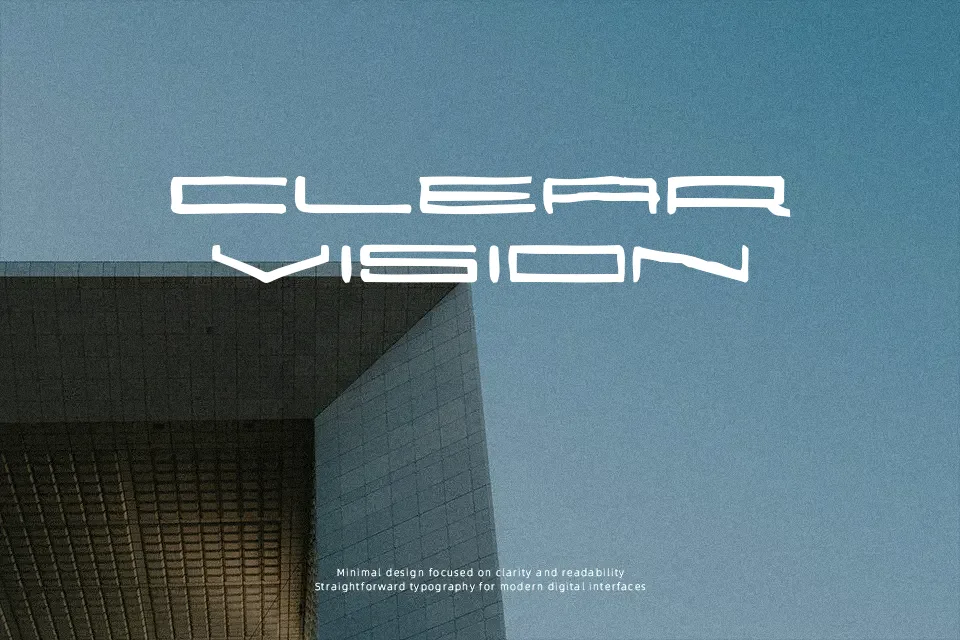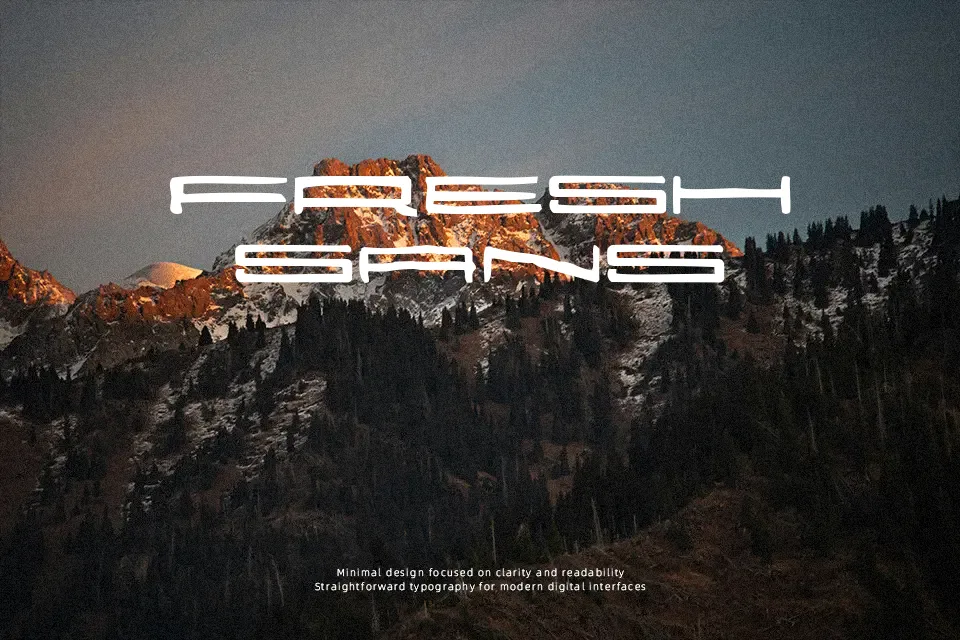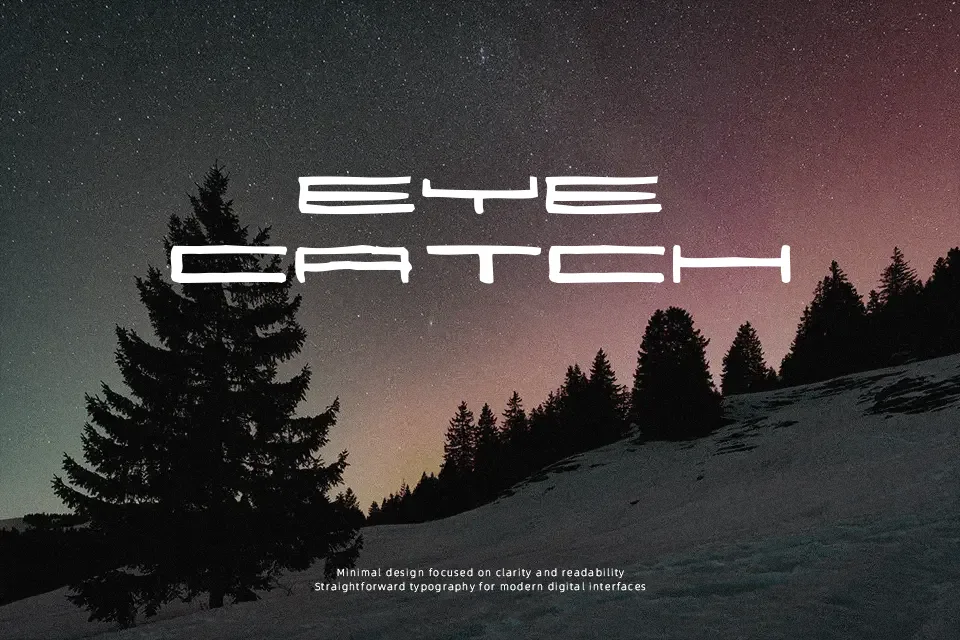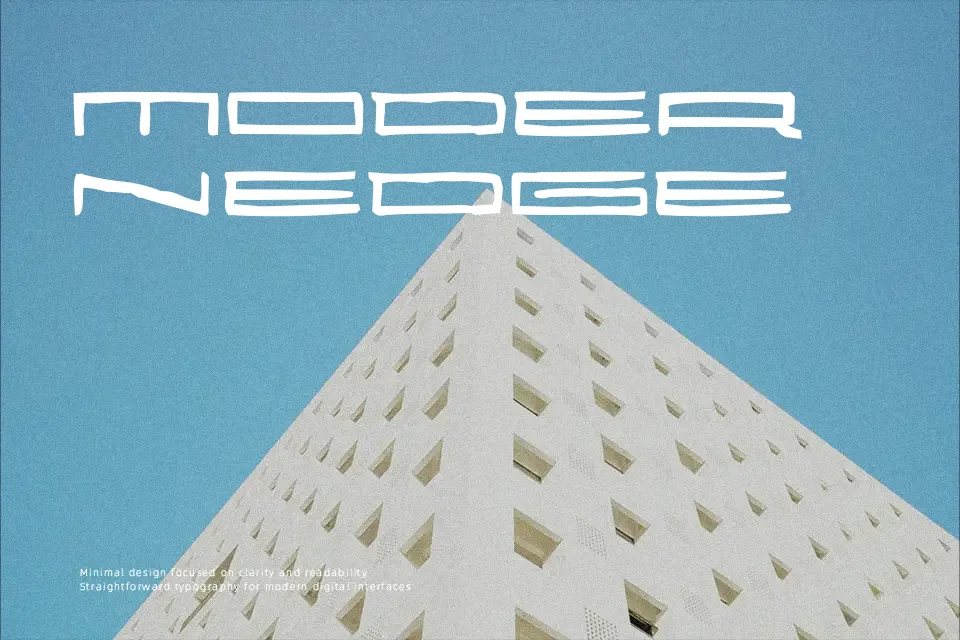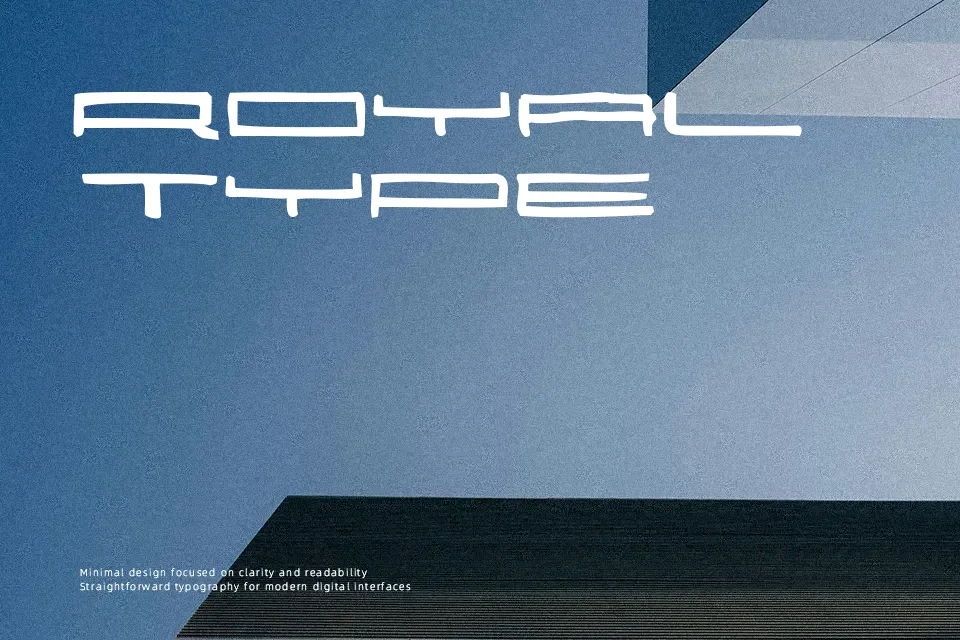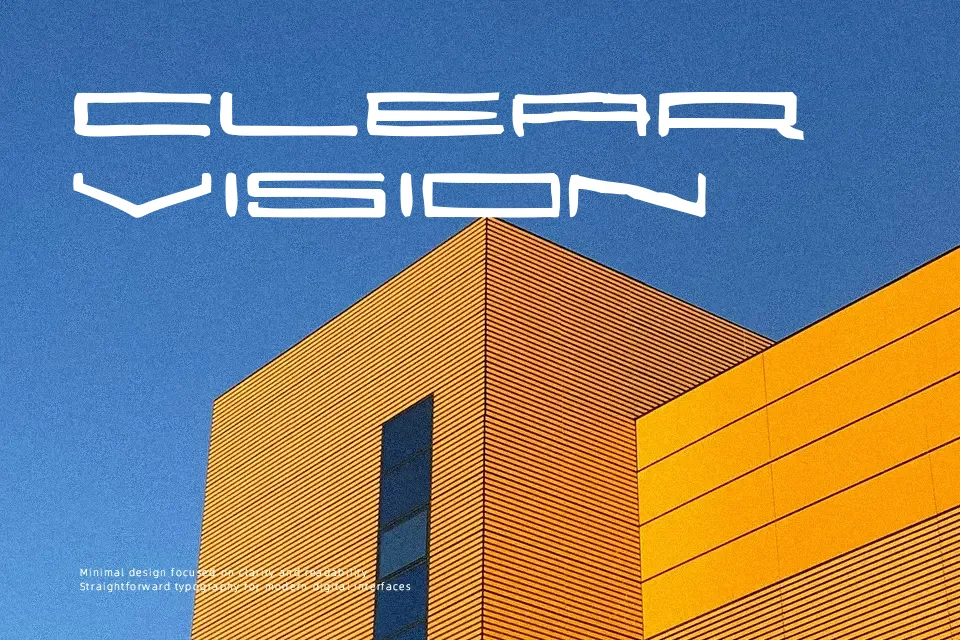
25000 Font
Designed by Patricio Zambra
At first glance, 25000 reads like a font born from a control panel readout — squared-off letterforms, low stroke contrast, and a deliberate eroded texture that chips at the edges without sacrificing legibility at headline sizes. Designed by Patricio Zambra, the typeface sits in the eroded display category, carrying a machine-built, utilitarian presence that leans futuristic rather than decorative. It works convincingly on gaming thumbnails, tech event posters, and industrial brand marks where a blunt, almost mechanical tone is the goal. The erosion effect, however, becomes a liability at small sizes — character edges break down and readability suffers quickly. Anyone needing a font for body copy, dense paragraph text, or formal documents should look elsewhere.
Best For:- Gaming or esports event poster headers
– Tech brand identity and logo lockups
– Industrial or dystopian-themed editorial headlines
– Music album artwork with a mechanical aesthetic
Not Ideal For:- Small-size body text or captions
– Corporate reports or professional documents
– Wedding or luxury lifestyle branding
– UI interfaces requiring sustained readability
Perfect for branding, gaming, and headline, with a bold and decorative style.